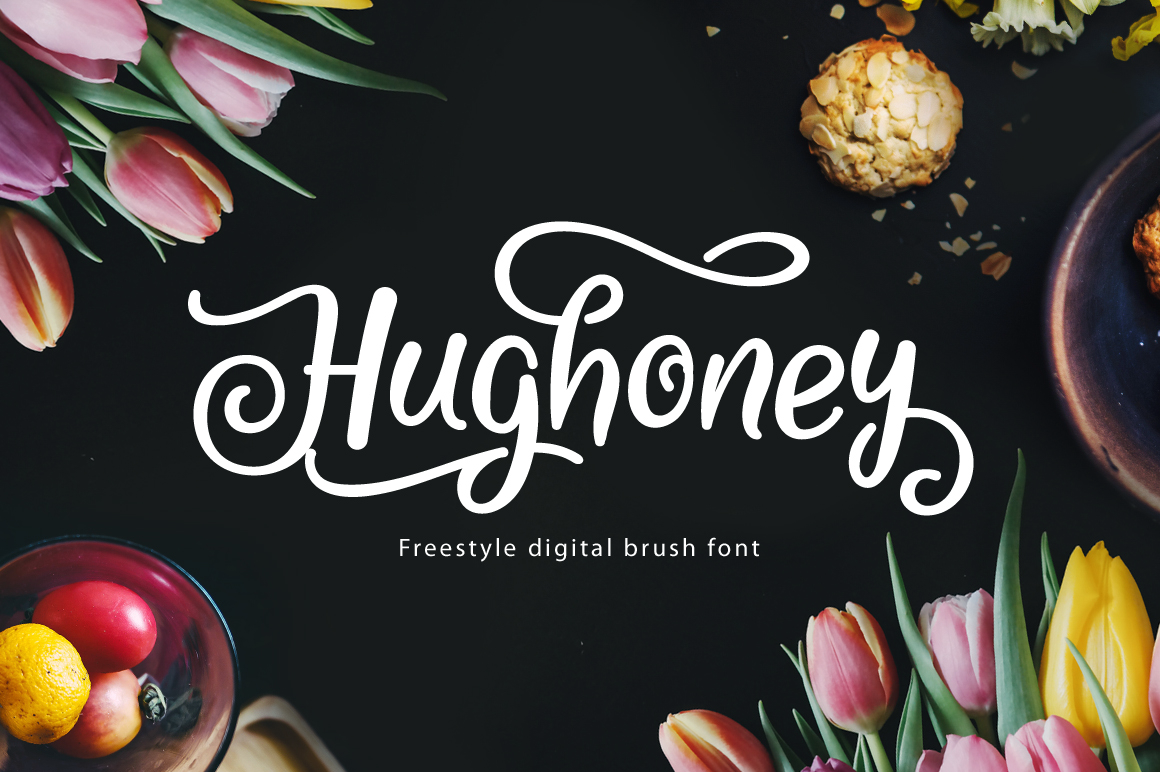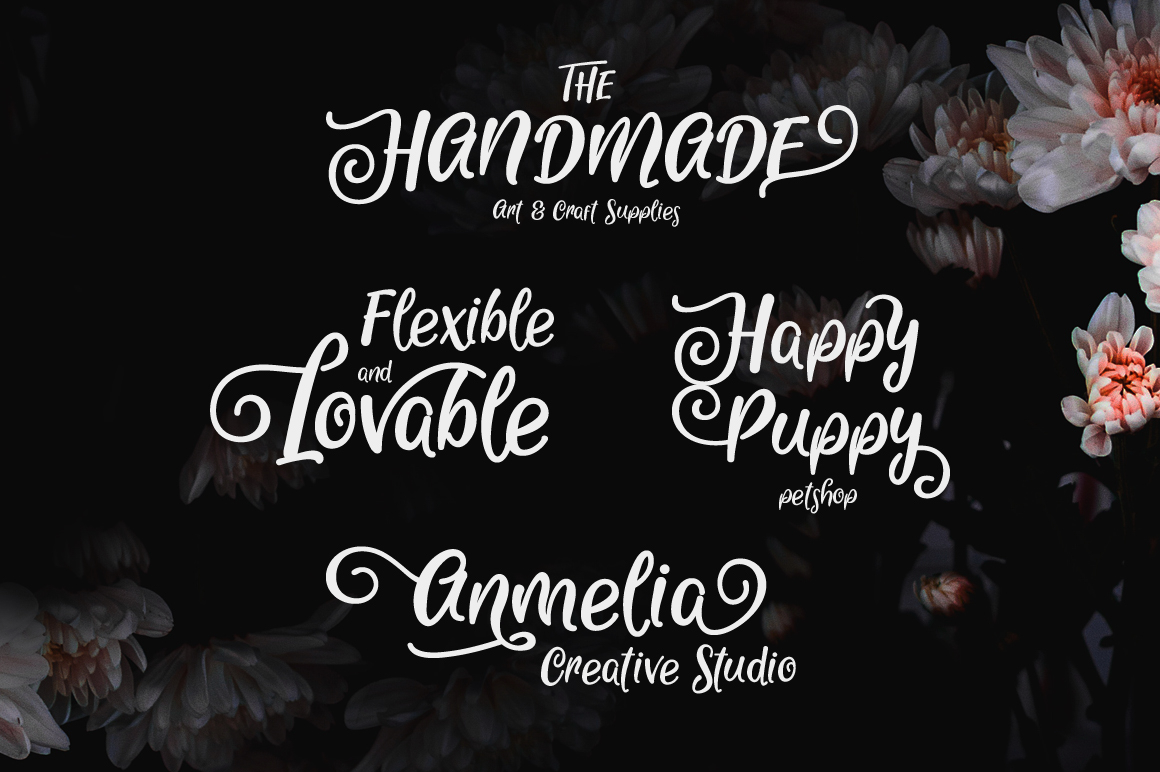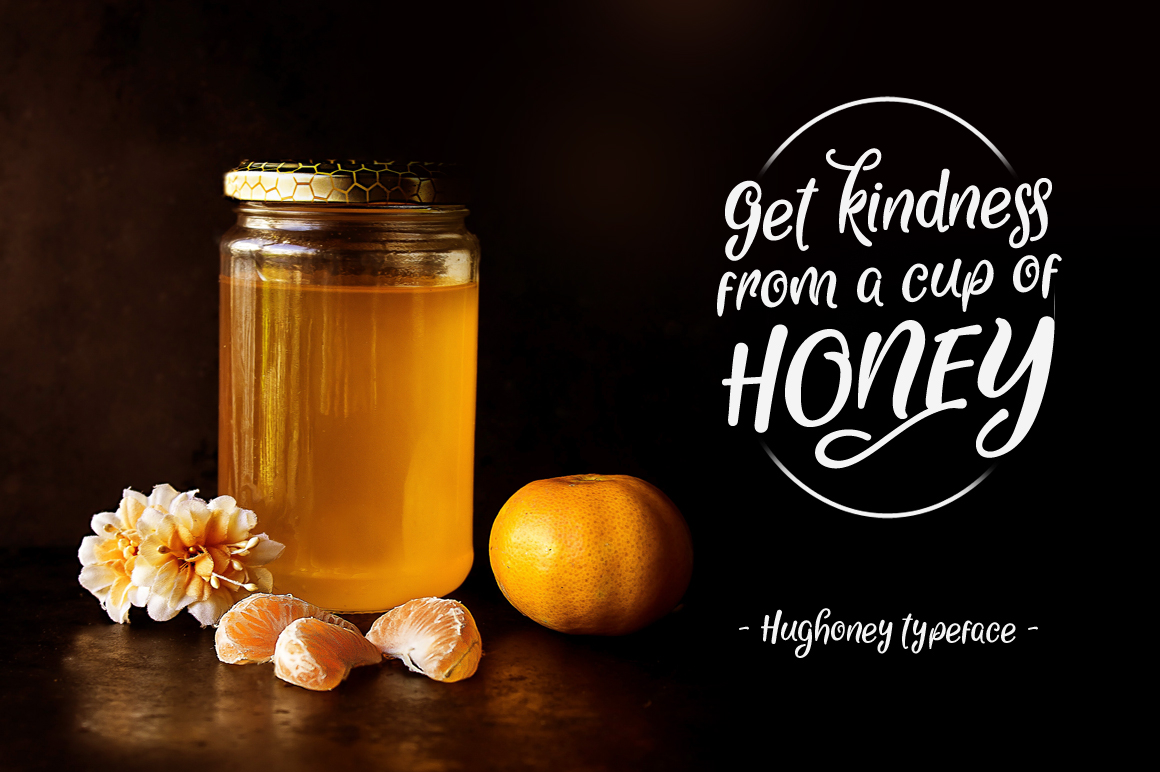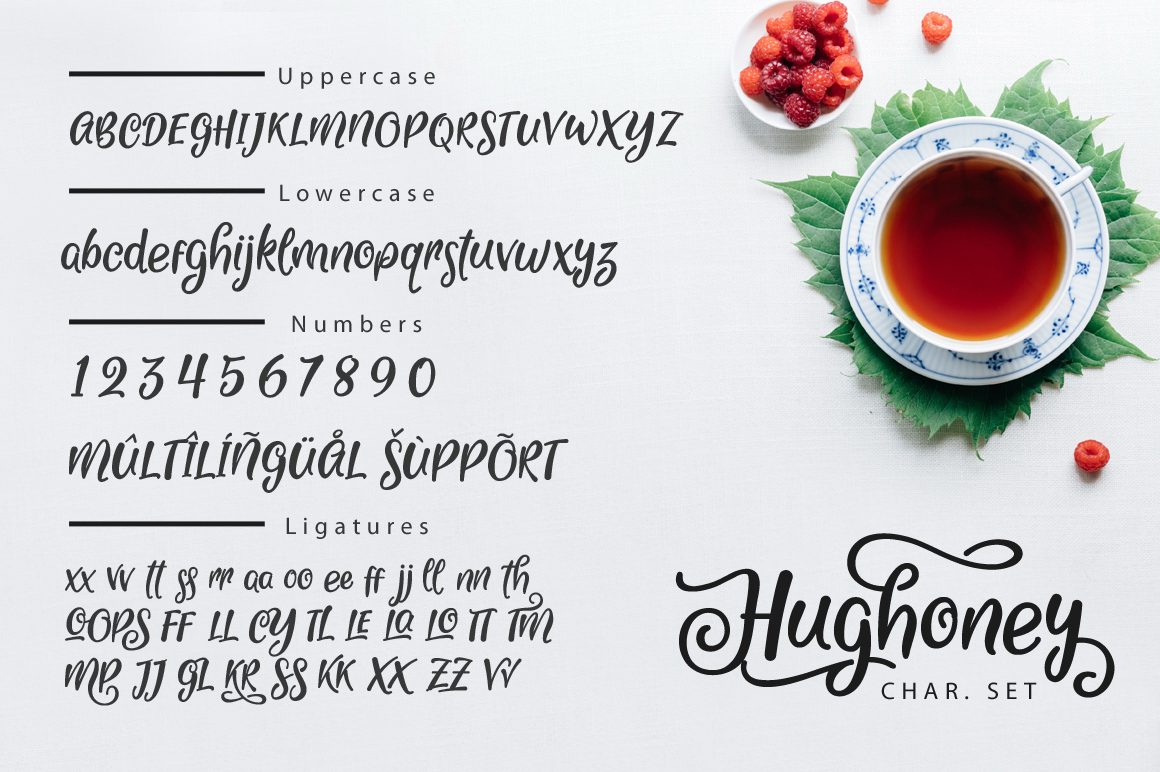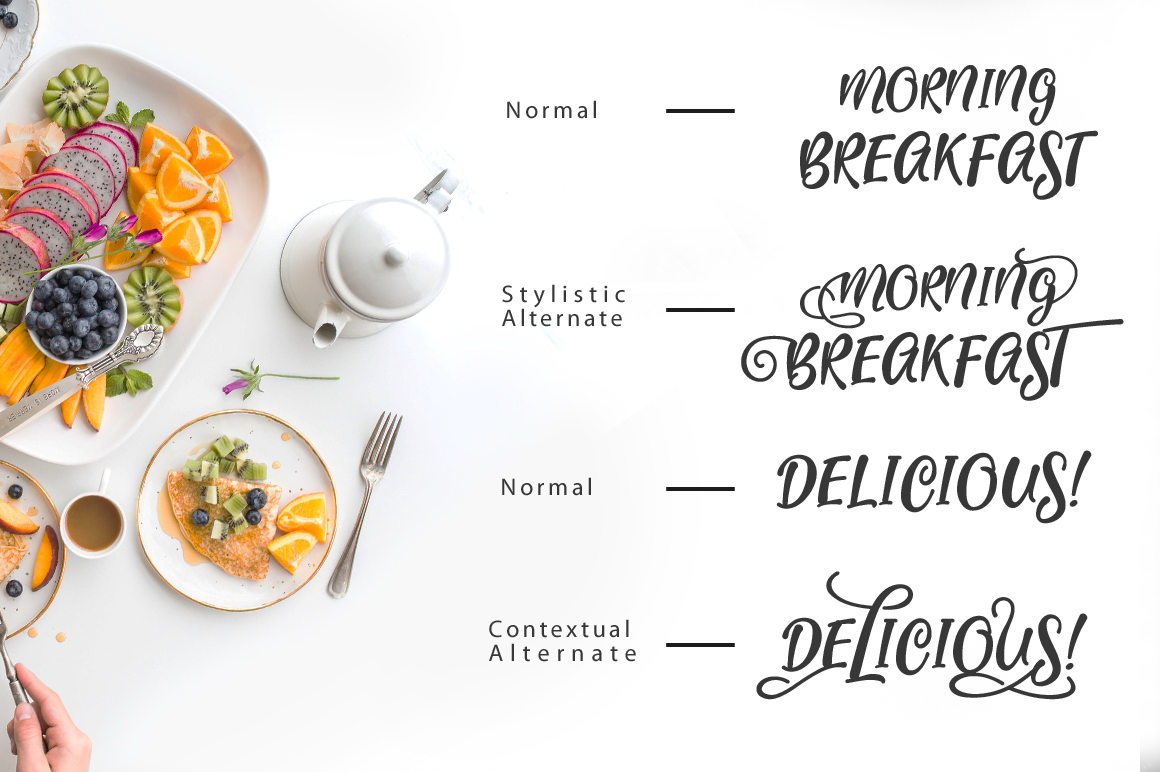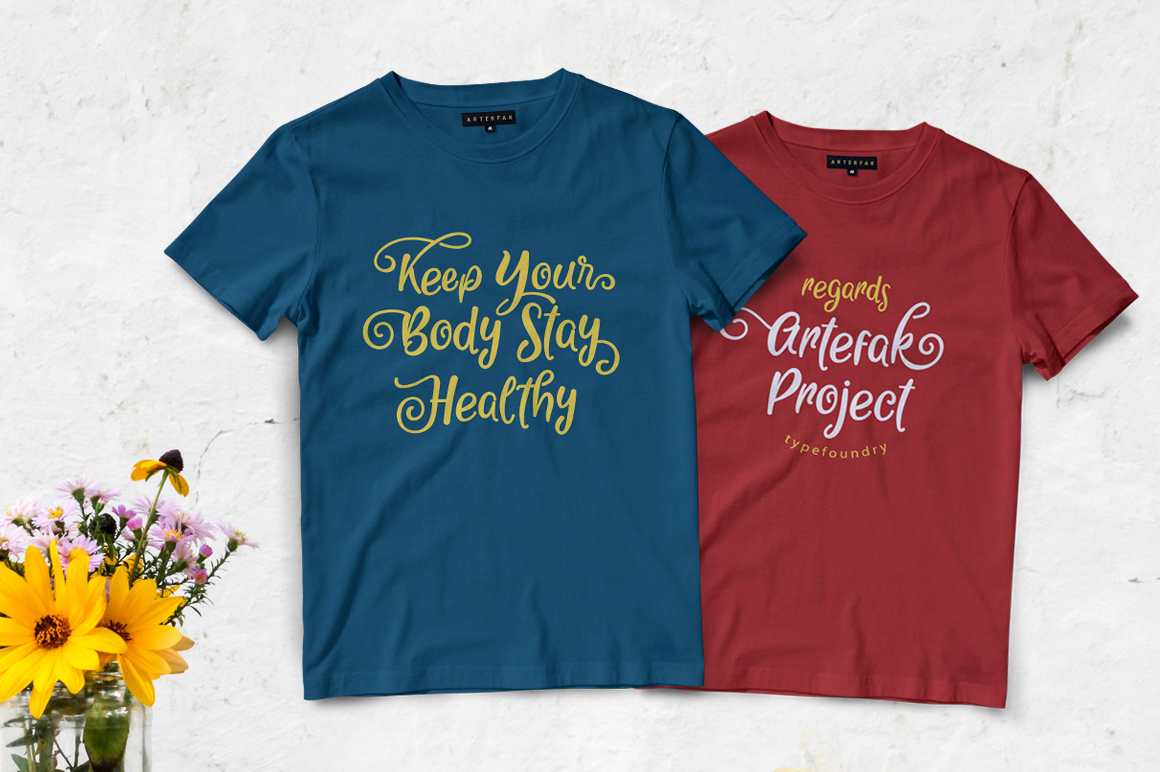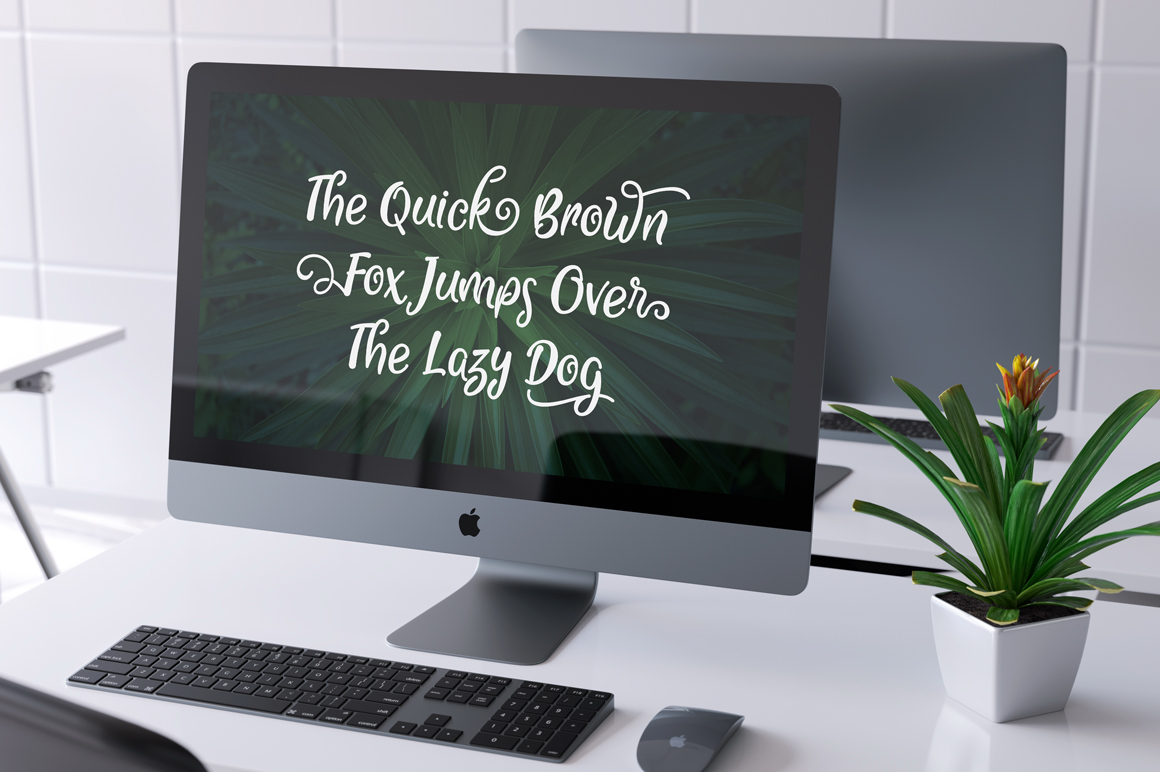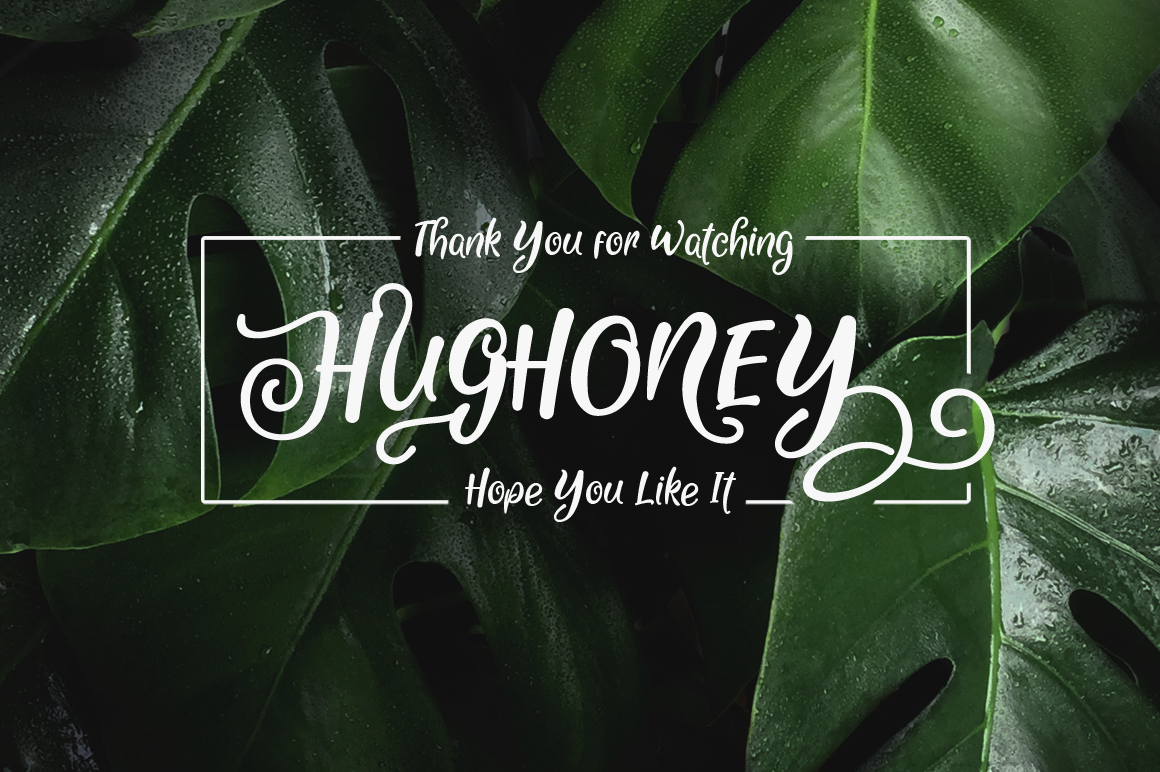
Hughoney Font
About Hughoney Font
Hughoney is a beautiful and graceful brush font, made to give a solid and reliable appeal to your creative projects. This freestyle script font was made with creative randomization, and provides the ability to give your designs a completely unique look.